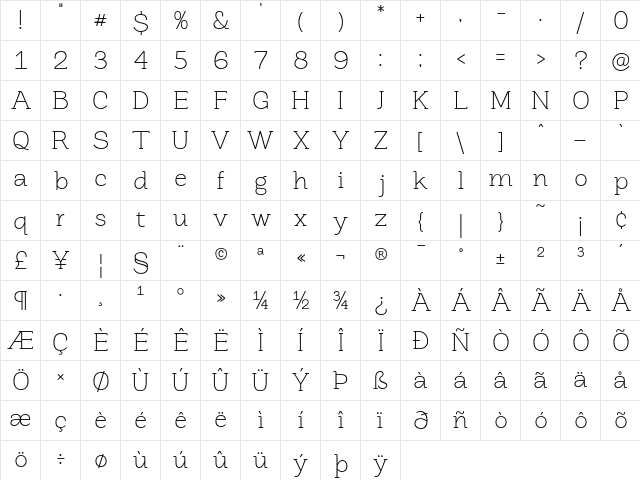
Monroe Light
| Foundry | Designed by Daniel Hernandez |
| Designer | Daniel Hernandez |
Design Context for Monroe Typeface
Monroe is a composed and adaptable typeface that performs quietly and consistently across a wide range of design contexts. Its slender proportions lend an understated elegance to any composition.